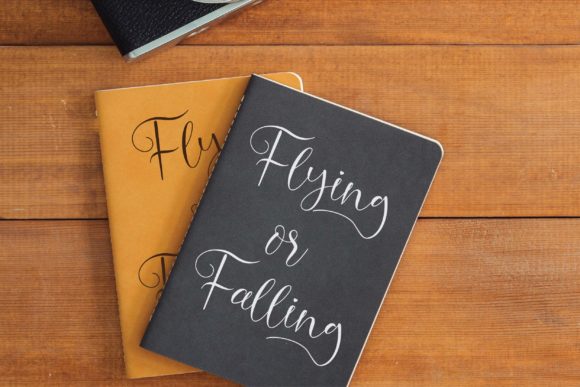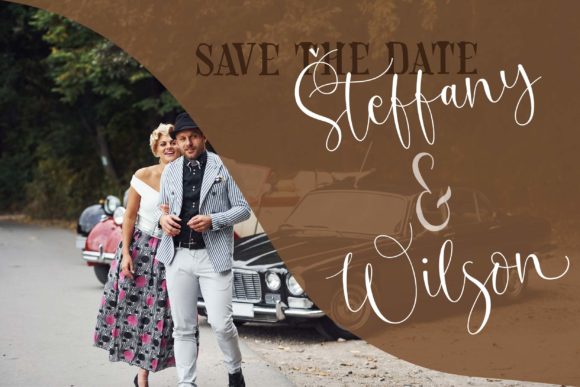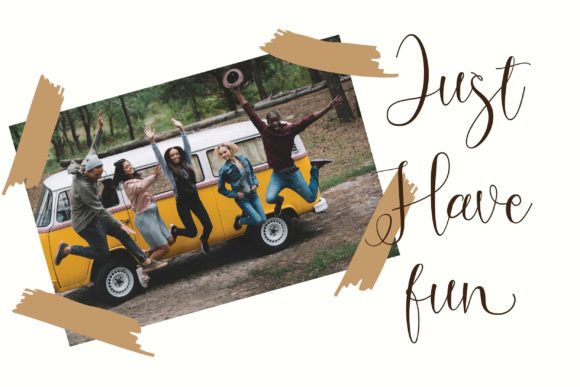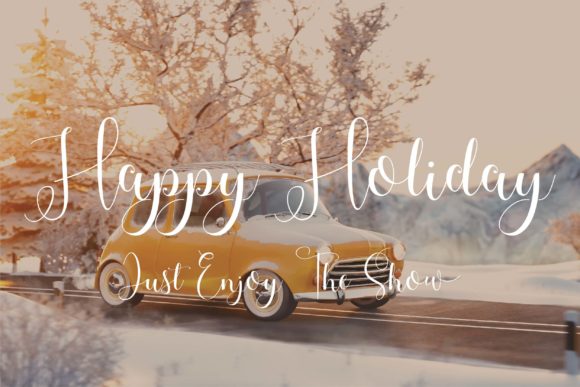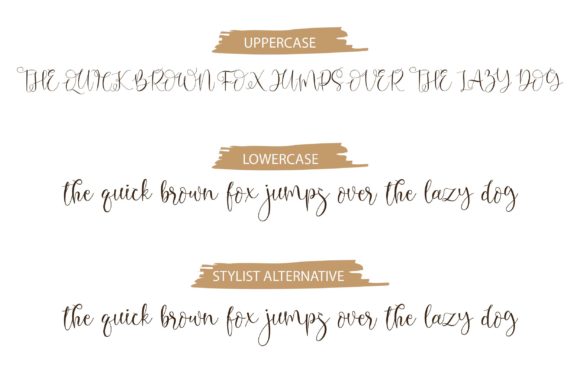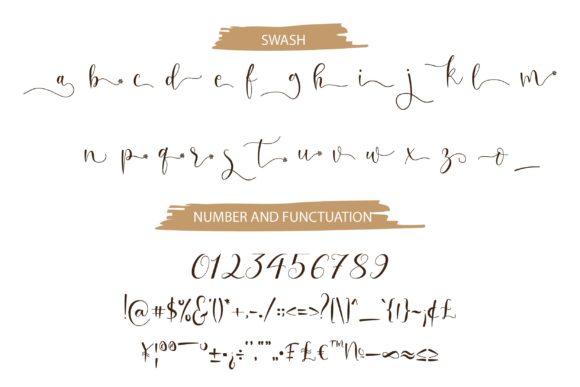
The Perfect Blend of Whimsy and Elegance: Baby Forest Font
As a designer, there’s nothing quite like that moment when inspiration strikes – the spark of creativity that sets your imagination ablaze. For some, it’s the sound of a gentle stream, while for others, it’s the sight of a delicate wildflower. For me, it’s the discovery of a new font that perfectly captures the essence of a project.
Enter Baby Forest Font, a charming handwritten font that embodies the sweet and delicate spirit of the natural world. Designed to add a touch of whimsy to your designs, Baby Forest Font is perfect for crafty projects that require a unique and elegant look. Whether you’re creating letterheads, titles, or stationery, this font is sure to bring a touch of magic to your work. As a designer, you’ll appreciate the versatility and sophistication that Baby Forest Font brings to your designs.
- Unique Characteristics: Whimsical, hand-drawn design with a natural, forest-inspired feel; Perfect for children’s books, nursery decor, and other projects requiring a playful, organic aesthetic
Baby Forest Font Review
Overall, I think the Baby Forest Font has some great qualities that make it a solid choice for certain projects. ✨ One of the things I like most about this font is its whimsical and playful feel, which would be perfect for a nursery or a children’s book. It’s also a great option for designers who want to add a touch of nature to their designs.
Another advantage of the Baby Forest Font is its legibility. It’s clear and easy to read, even at smaller font sizes, which makes it a great choice for body text or headings.
- Whimsical and playful feel
- Perfect for nursery or children’s book designs
- Great option for adding a touch of nature to designs
- Clear and legible at various font sizes
Limitsations:
- ⚠️ Limited font styles available
- ⚠️ Not ideal for formal or professional designs
- ⚠️ May not be suitable for projects requiring a lot of text
Overall, I think the Baby Forest Font is a great choice for designers who want to add a playful touch to their projects. While it may not be the best option for every project, it’s definitely worth considering for the right design.
The Baby Forest Font is suitable for a variety of design projects, including:
- Nursery decor and baby-themed designs
- Children’s book covers and illustrations
- Educational materials and worksheets
Remember to use the font in a way that is consistent with its playful and whims
Q: Can I customize the Baby Forest Font to fit my specific design needs?
Yes, the Baby Forest Font is a highly customizable font that can be modified to fit your specific design needs. You can adjust the font’s weight, width, and style to create a unique look that suits your project. Additionally, the font’s OpenType features allow for advanced typographic control, including ligatures, swashes, and more.